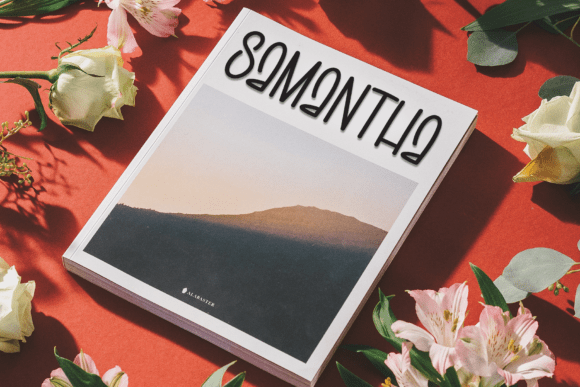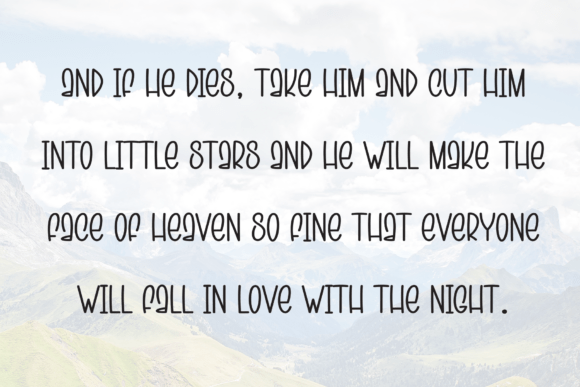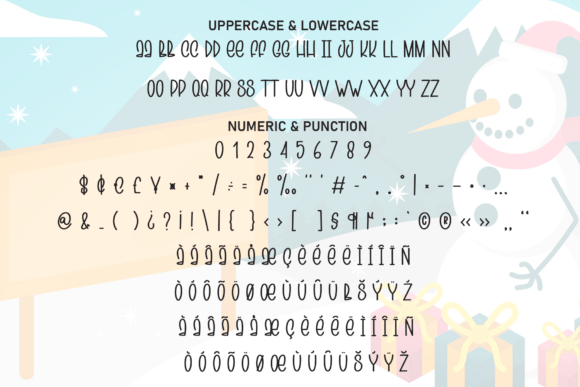
Introduction to Display Snowman Font
Add a touch of handcrafted charm to your winter toolkit with Display Snowman, a tall and playful handwritten font.
Featuring elongated vertical proportions and a whimsical, irregular baseline, this typeface captures the effortless joy of a snow day Its clean, monolinear weight ensures excellent legibility while maintaining a creative, hand-drawn soul.
Key Features of Display Snowman Font
Why Choose Display Snowman Font?
Display Snowman Font offers exceptional quality and versatility, making it a valuable addition to your design toolkit. Whether you’re creating for personal projects or commercial use, Display Snowman Font delivers professional results.